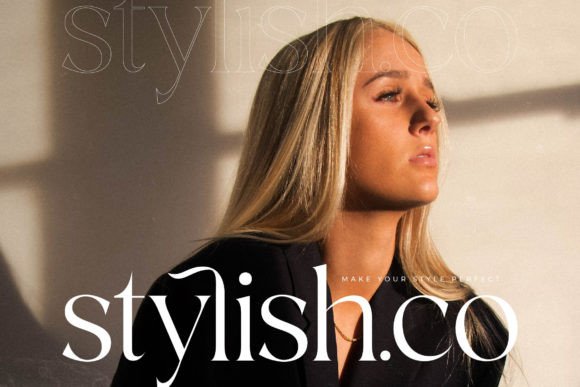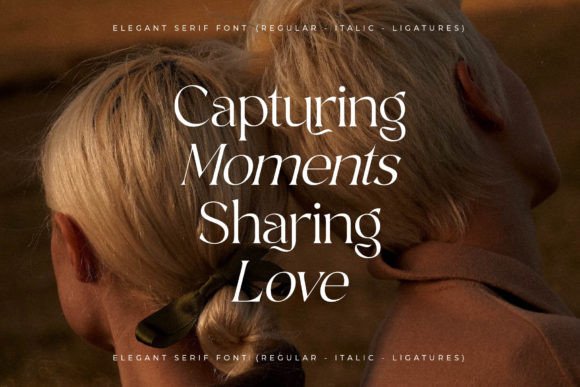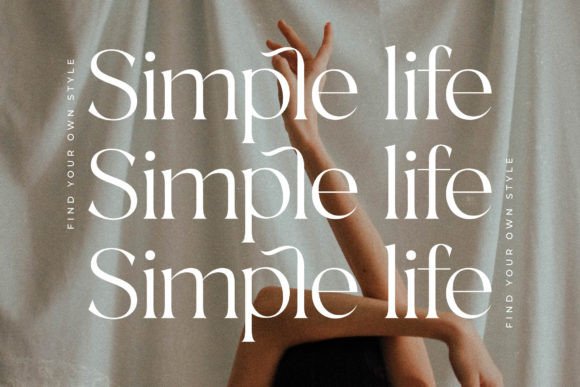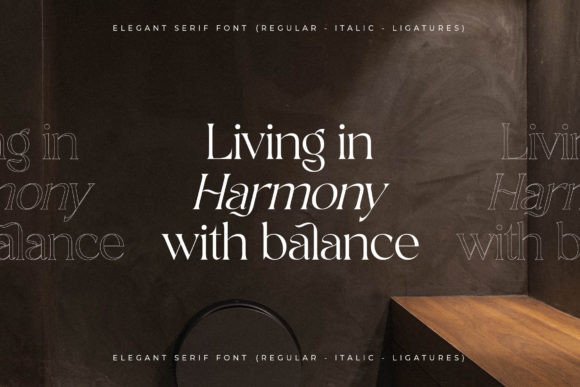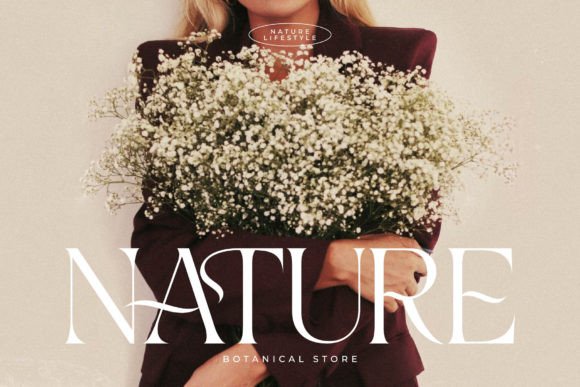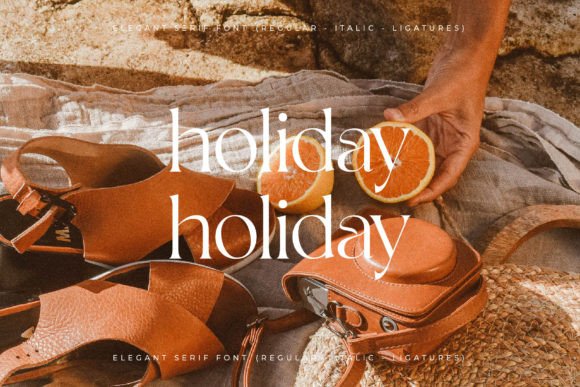
Introduction to Hefigrah Font
Hefigrah is a serif modern and classic typeface that has its own unique style & modern look.
This typeface is perfect for an elegant & luxury logo, book or movie title design, fashion brand, magazine, clothes, lettering, quotes, and so much more .